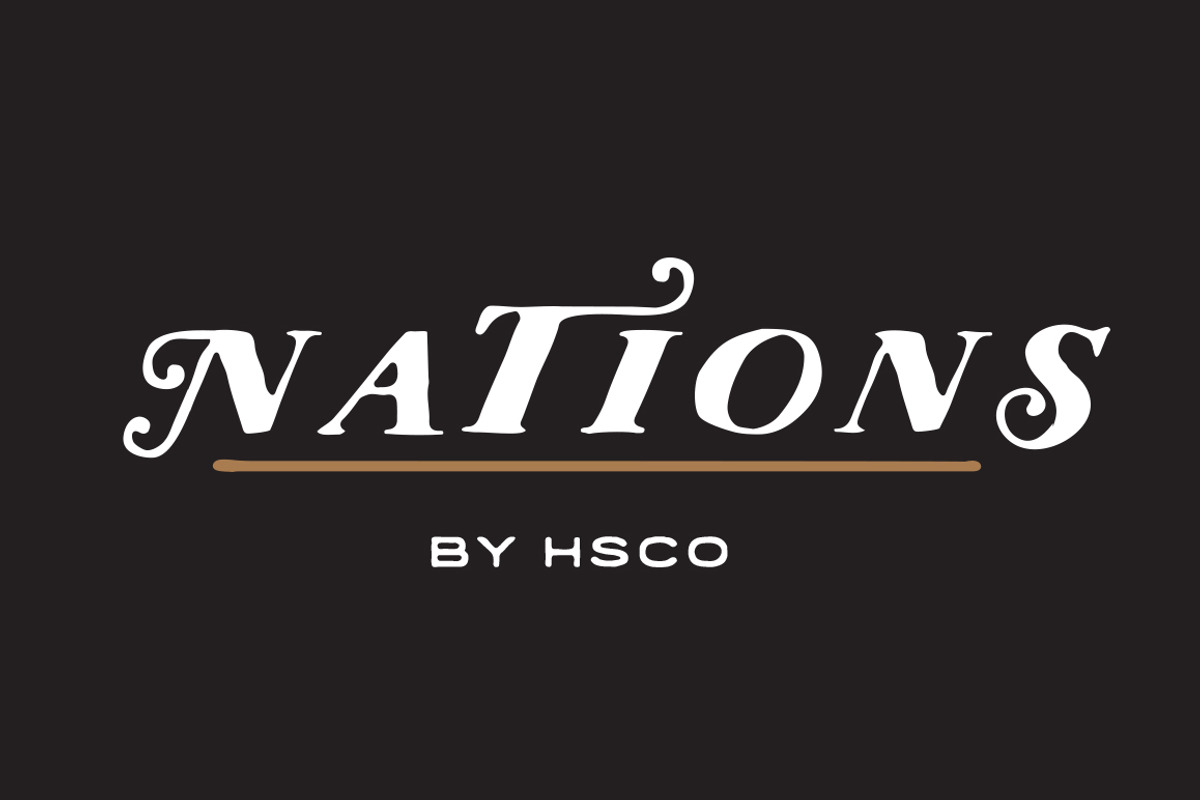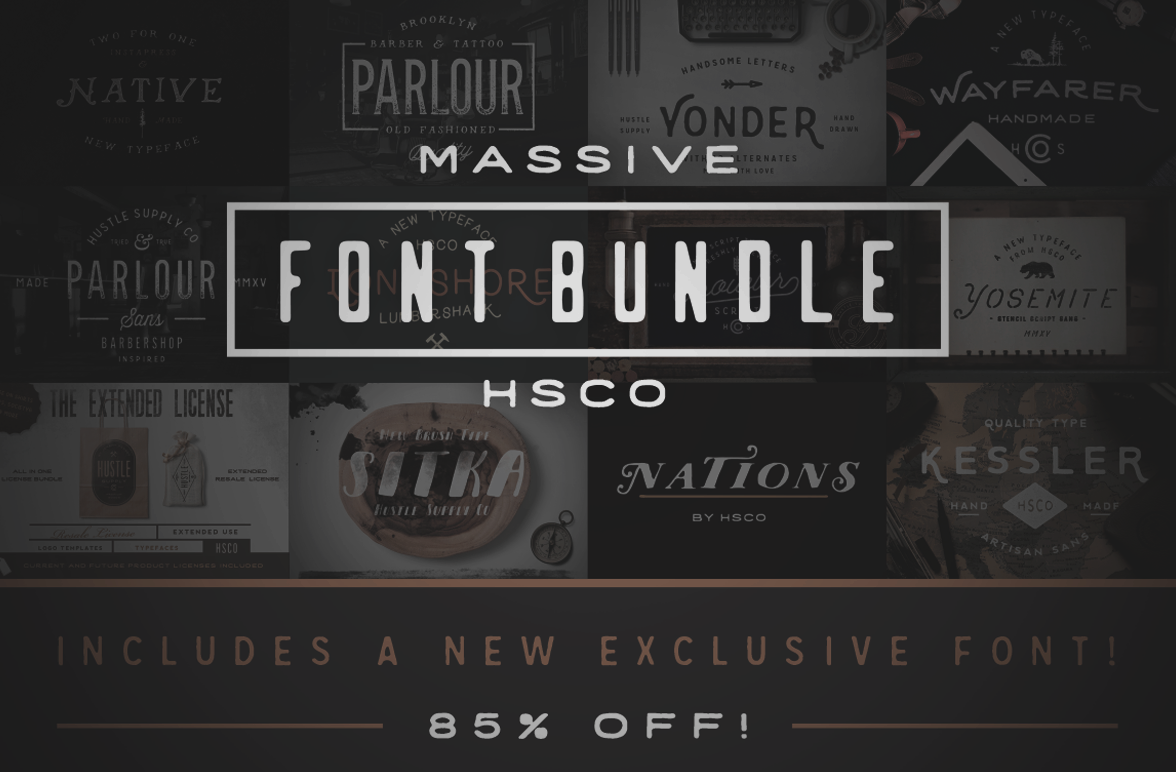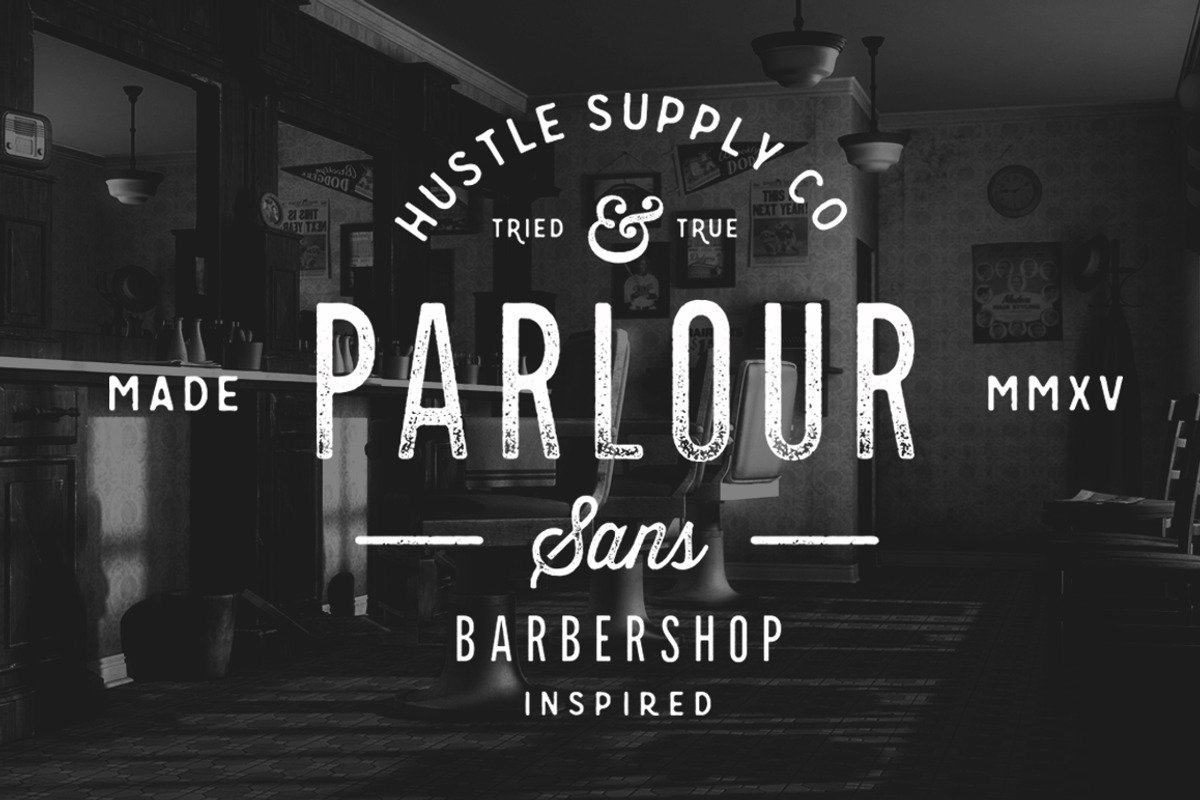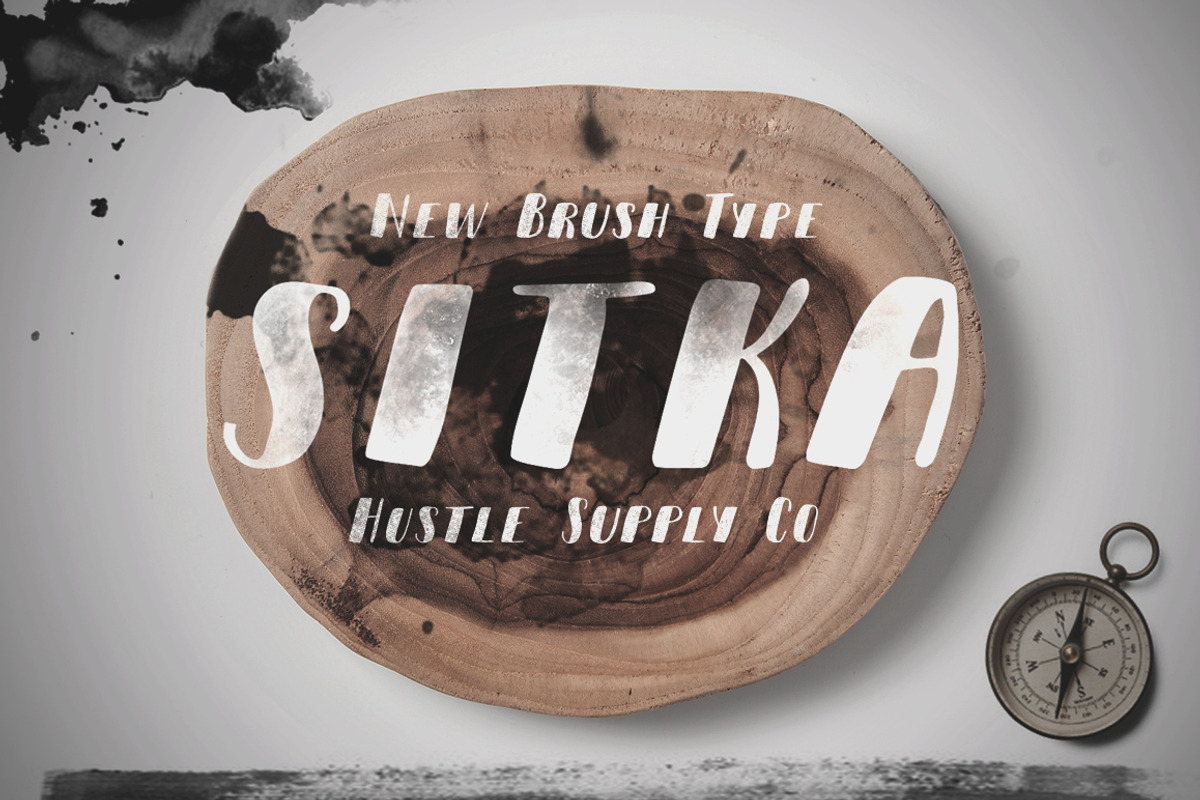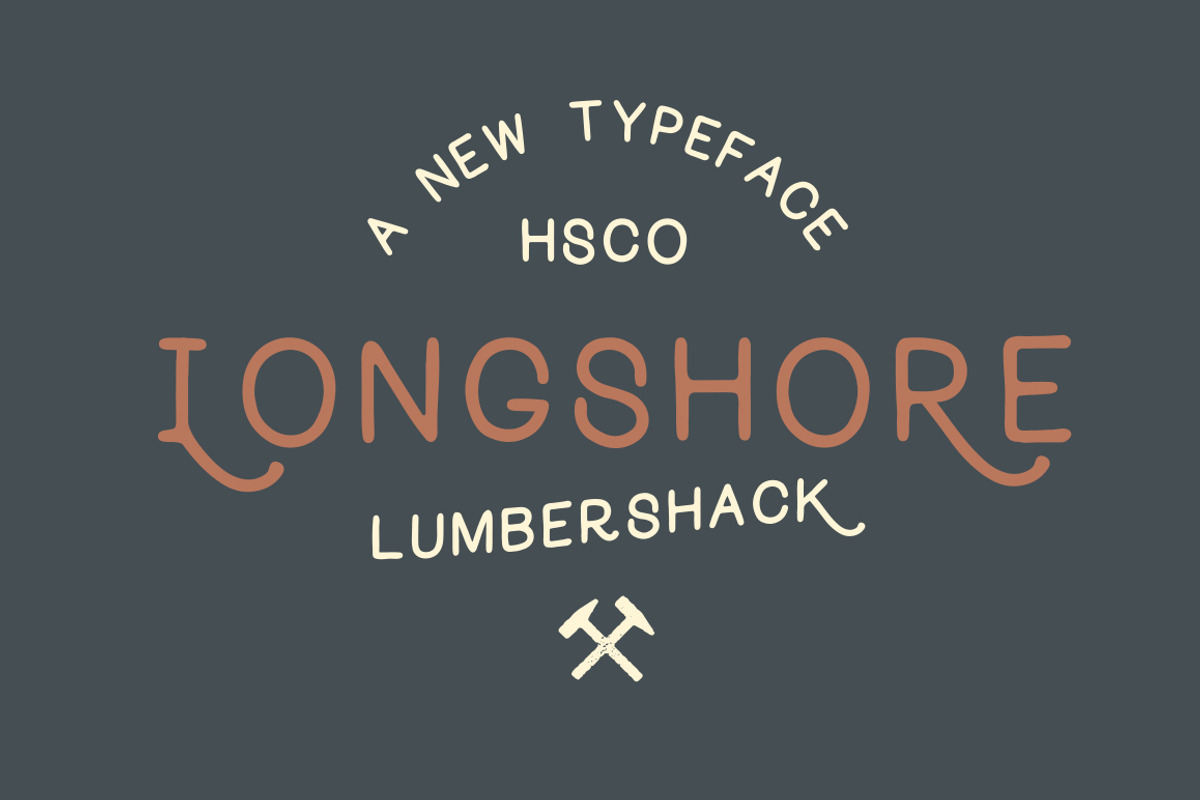
Massive Font Bundle
Hustle Supply Co. has made some best selling fonts over the past years. Everything from Yonder to Growler Script, all the way back to my first font, Native. This bundle highlights the hand drawn style that has taken Creative Market by storm. Now get 12 Products (12 Font Files) + Extended License for ALL fonts for an incredible 85% Off. This is your chance to stock your design arsenal with some of the most popular hand drawn fonts!
These fonts are perfect for logos, posters, apparel, wedding invitations, beer labels & many other combinations! I was reluctant to release this deal, as it's so much value for such an affordable price, but my experience with Creative Market and my Customers have been amazing. This is my gift to you, get every font I've made up to now!
This bundle includes:
& Exclusive to this bundle, "Kessler - Hand Drawn Font", you can only get it here!